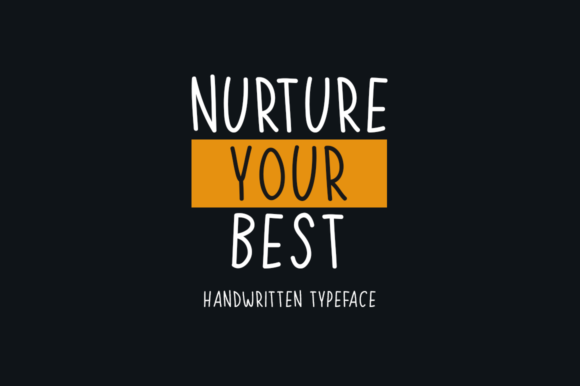
Unleash the Power of Nurture Your Best - The Ultimate Font for Modern Apps!
In a world saturated with digital noise, your app needs a strong visual presence to stand out. Nurture Your Best is the key to unlocking that presence, a modern and clean display font that will captivate your users from the first glance.
Crafted with meticulous attention to detail by the esteemed Seemly Fonts, Nurture Your Best exudes a sense of sophistication and elegance that will elevate your app to new heights. Its sleek lines and crisp curves dance across the screen, creating a visual symphony that will leave a lasting impression on your audience.
But Nurture Your Best is more than just visually stunning; it's also incredibly versatile, adapting seamlessly to a wide range of design aesthetics. Whether you're creating a sleek and minimalist app or a vibrant and playful one, Nurture Your Best will effortlessly complement your vision.
With Nurture Your Best, you can:
- Craft captivating headlines that demand attention
- Design user interfaces that are both intuitive and visually appealing
- Create marketing materials that leave a lasting impression
- Express your brand's unique personality with a font that truly reflects its essence
Don't settle for ordinary fonts that blend into the background. Choose Nurture Your Best and watch as your app transforms into a visual masterpiece. Embrace the power of modern typography and unlock a world of endless creative possibilities.